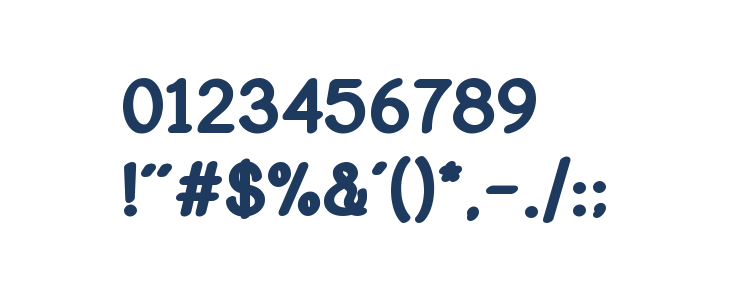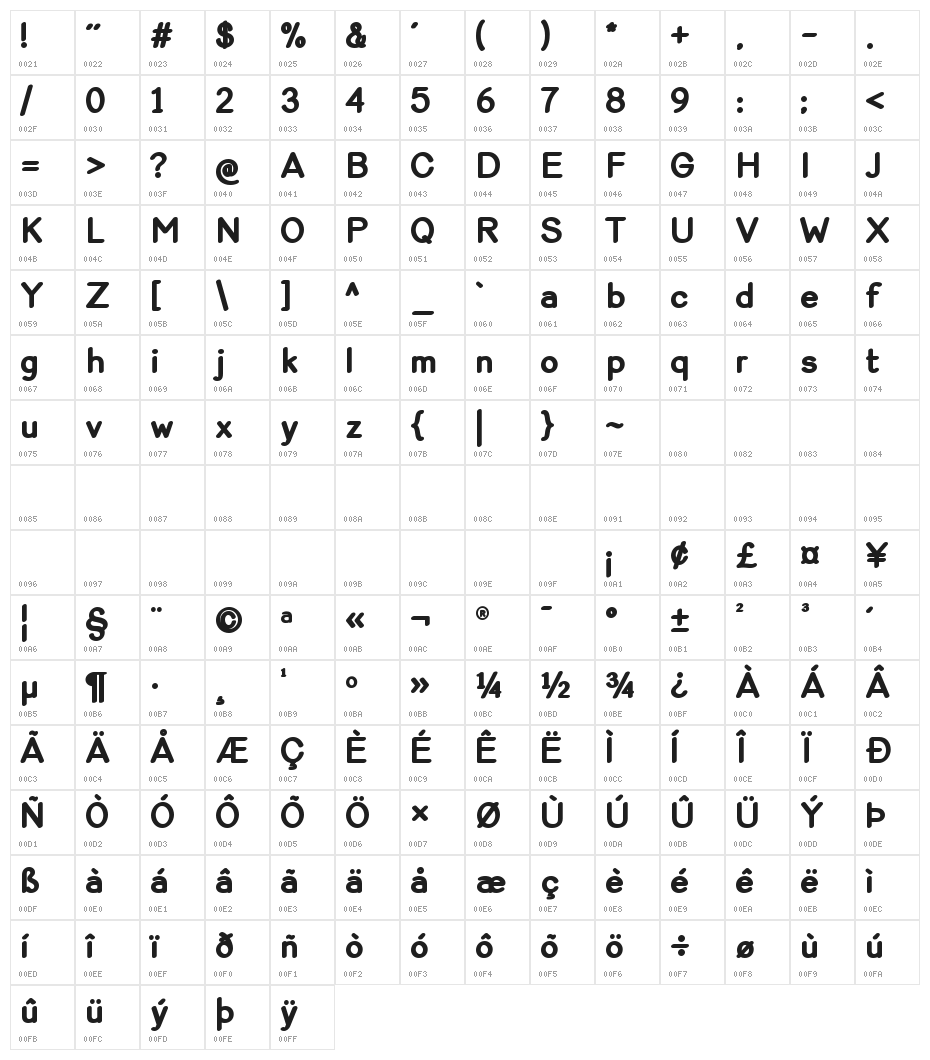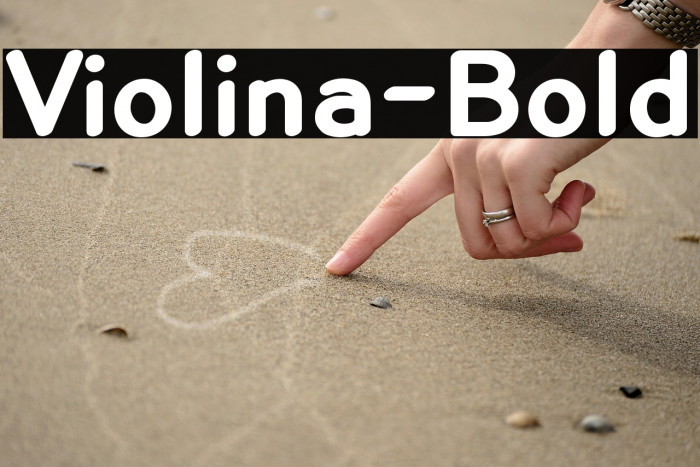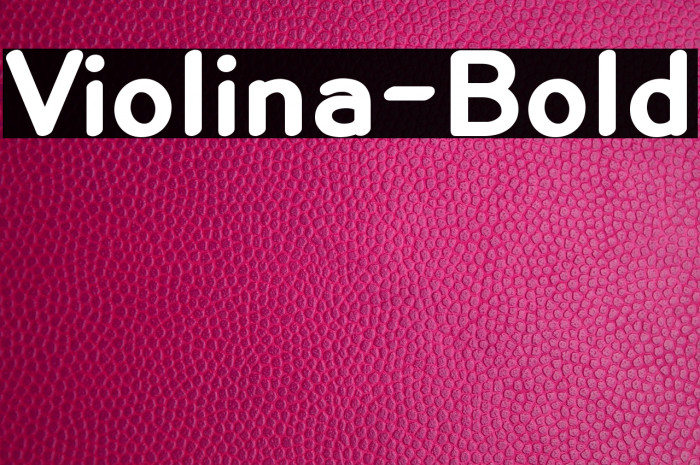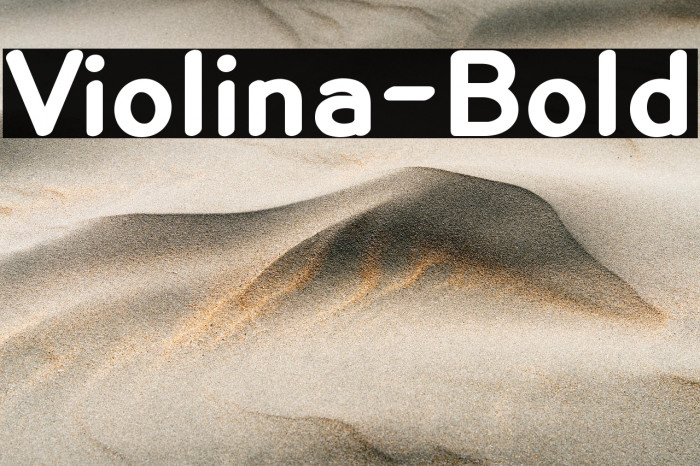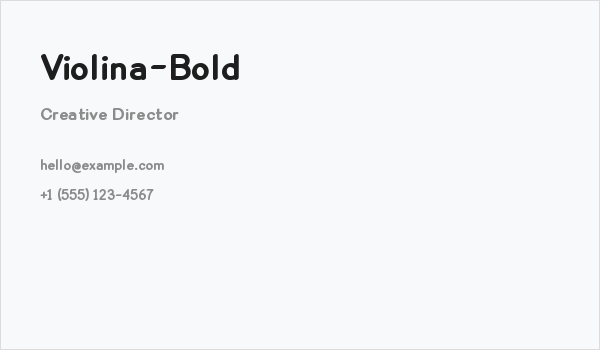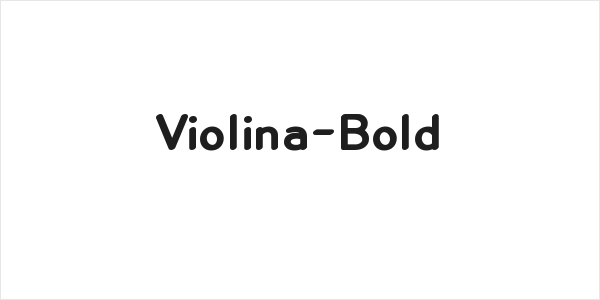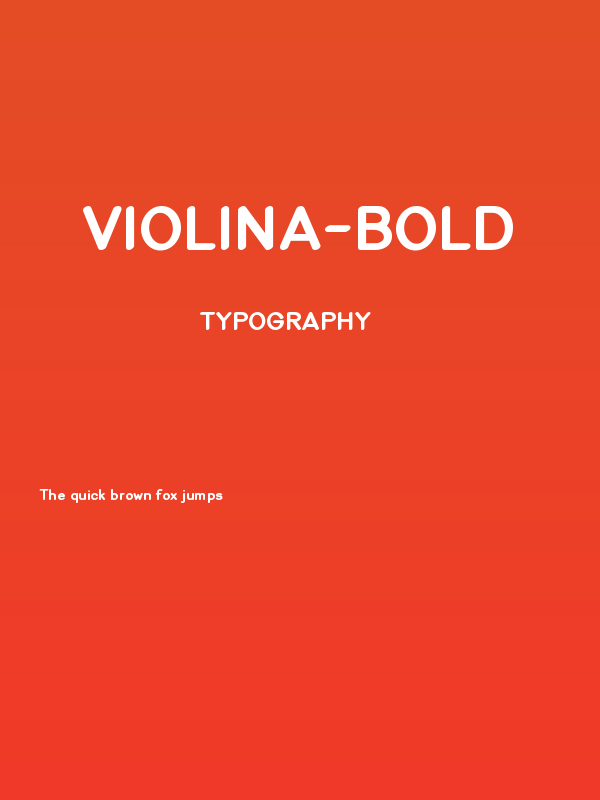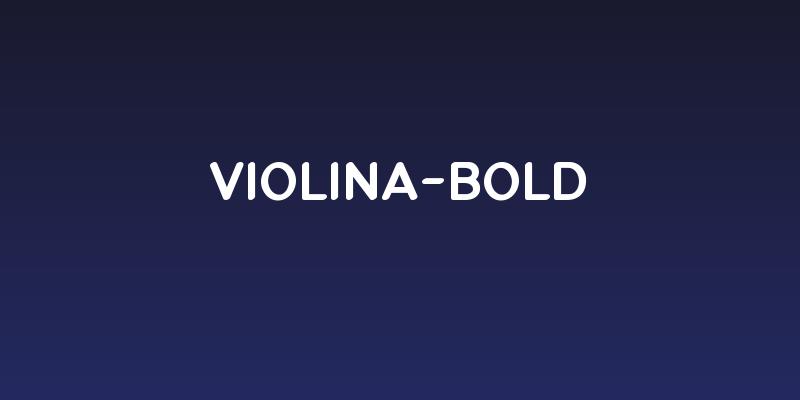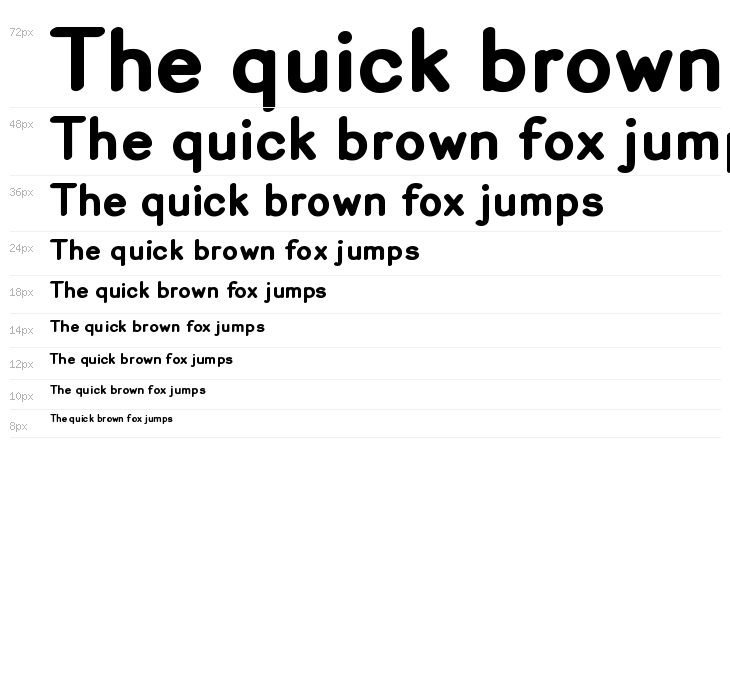
Violina-Bold Font
Violina-Bold Description
This font features a bold and rounded style, characterized by its smooth curves and uniform stroke width. The letters are evenly spaced, providing a clean and modern appearance. The uppercase and lowercase characters maintain a consistent design, enhancing readability. The numerals and special characters are designed to match the overall aesthetic, making them easily distinguishable. This font's boldness makes it suitable for attention-grabbing headlines and titles, while its simplicity ensures clarity in various applications.